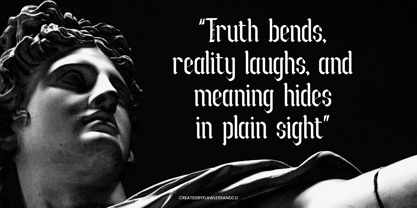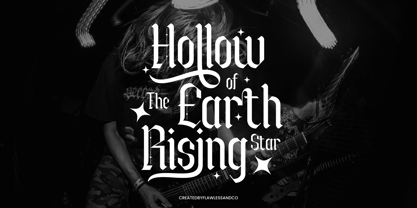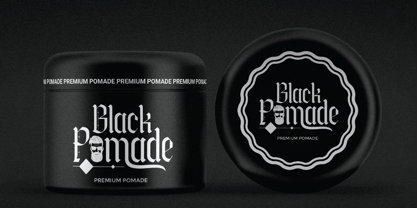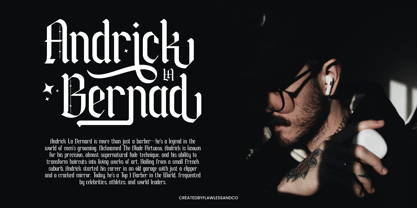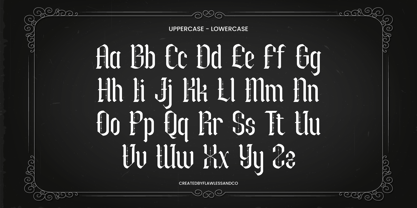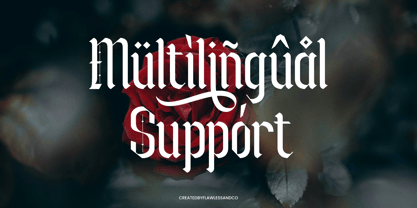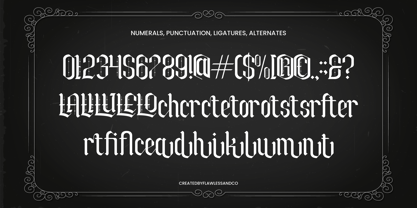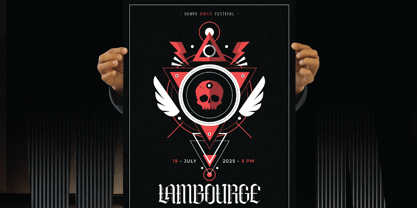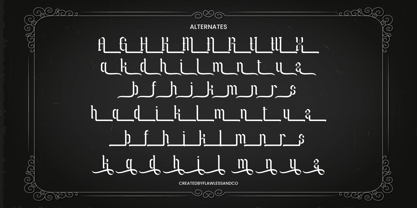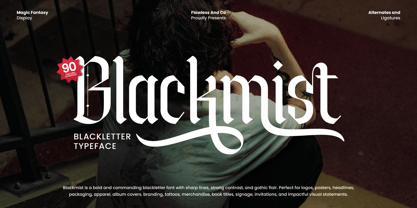
Blackmist
by Flawlessandco
The Blackmist Font Family was designed by Achmad Yani and published by Flawlessandco. Blackmist contains 1 styles. More about this family
Blackmist is a bold and captivating blackletter typeface that combines sharp edges, strong contrasts, and a gothic-inspired aesthetic. With its commanding presence and intricate details, Blackmist is perfect for creating impactful visual designs that demand attention. Ideal for logos, branding, posters, headlines, apparel, album covers, packaging, merchandise, tattoos, book titles, invitations, signage, and statement designs, this typeface brings both elegance and power to any project.
Designers: Achmad Yani
Foundry: Flawlessandco